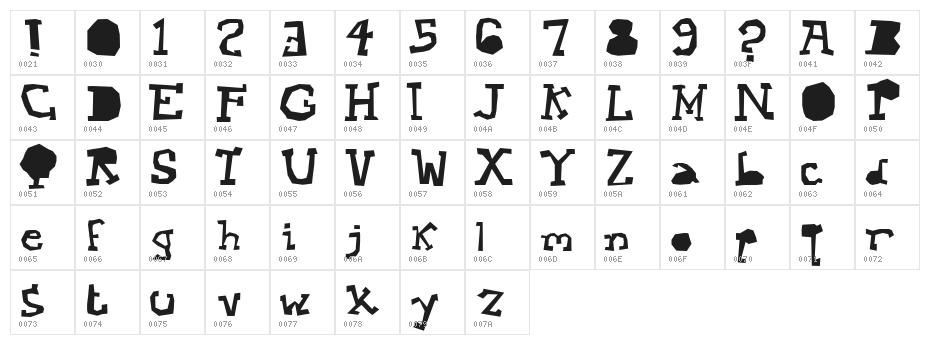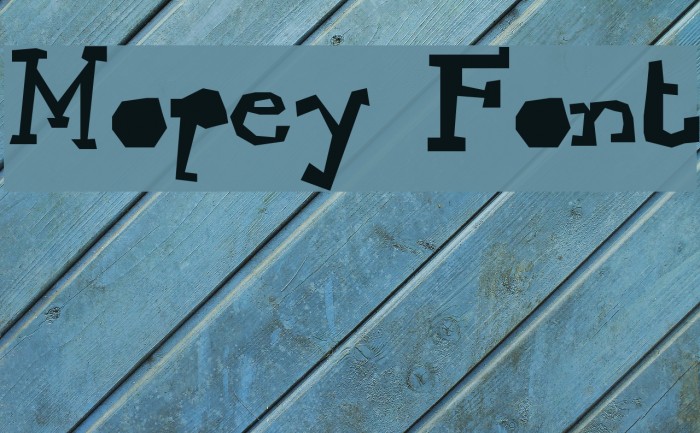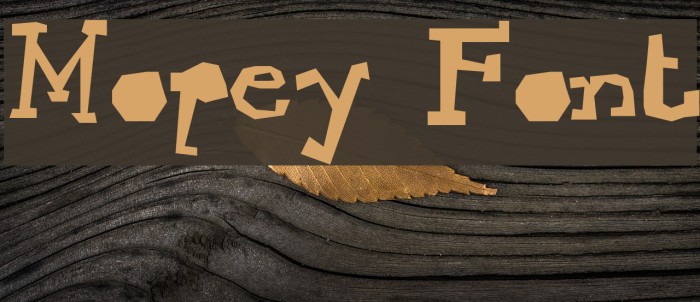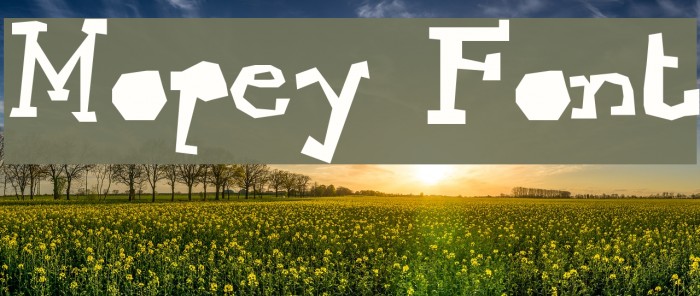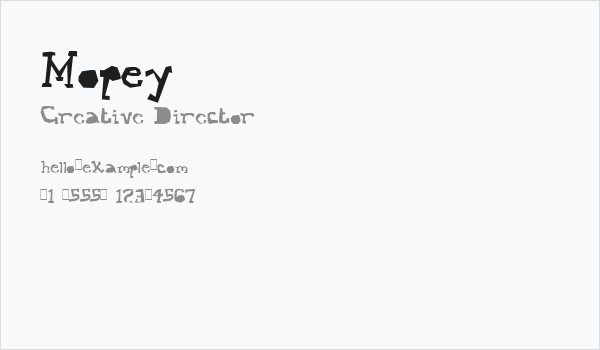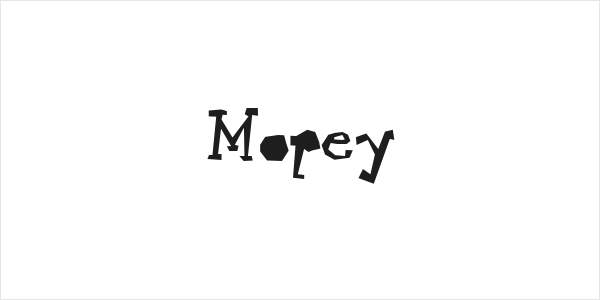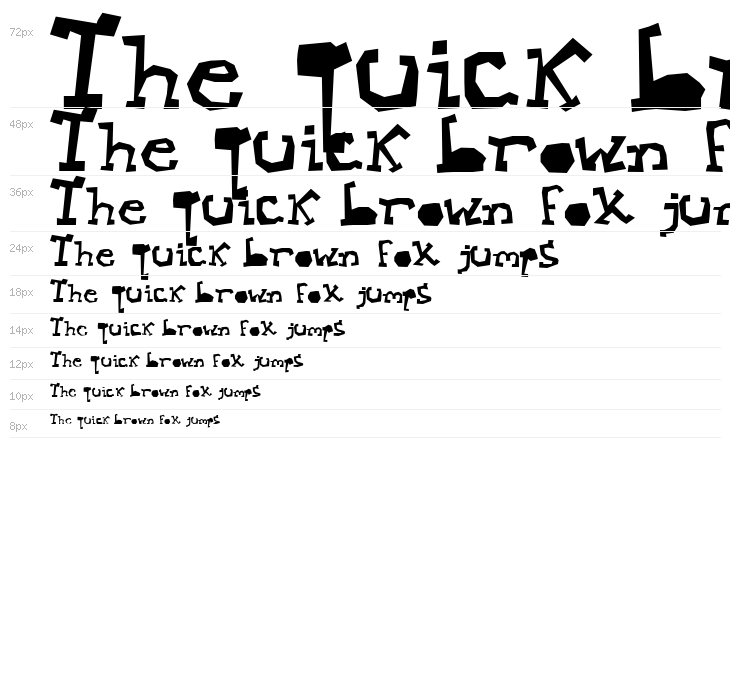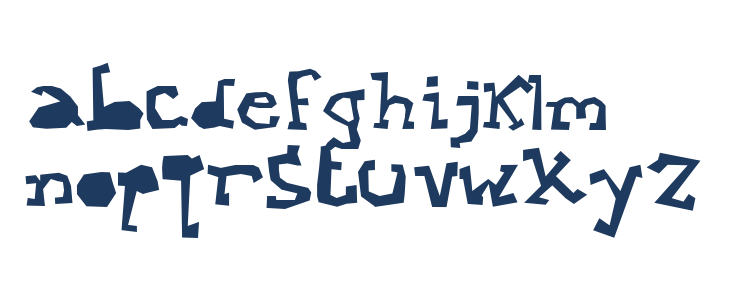
Mopey Font
Mopey Description
This font features a unique, playful design with irregular, jagged edges that give it a hand-cut, collage-like appearance. The characters are bold and chunky, with a distinct lack of uniformity that adds to its quirky charm. Each letter has a slightly different shape, contributing to an overall whimsical and artistic feel. The uppercase and lowercase letters maintain this playful inconsistency, while the numbers and special characters follow suit with their own distinctive flair. This font is perfect for projects that require a touch of creativity and individuality.
| Proposed Projects | Ideal for children's book covers, creative posters, and artistic branding projects. |